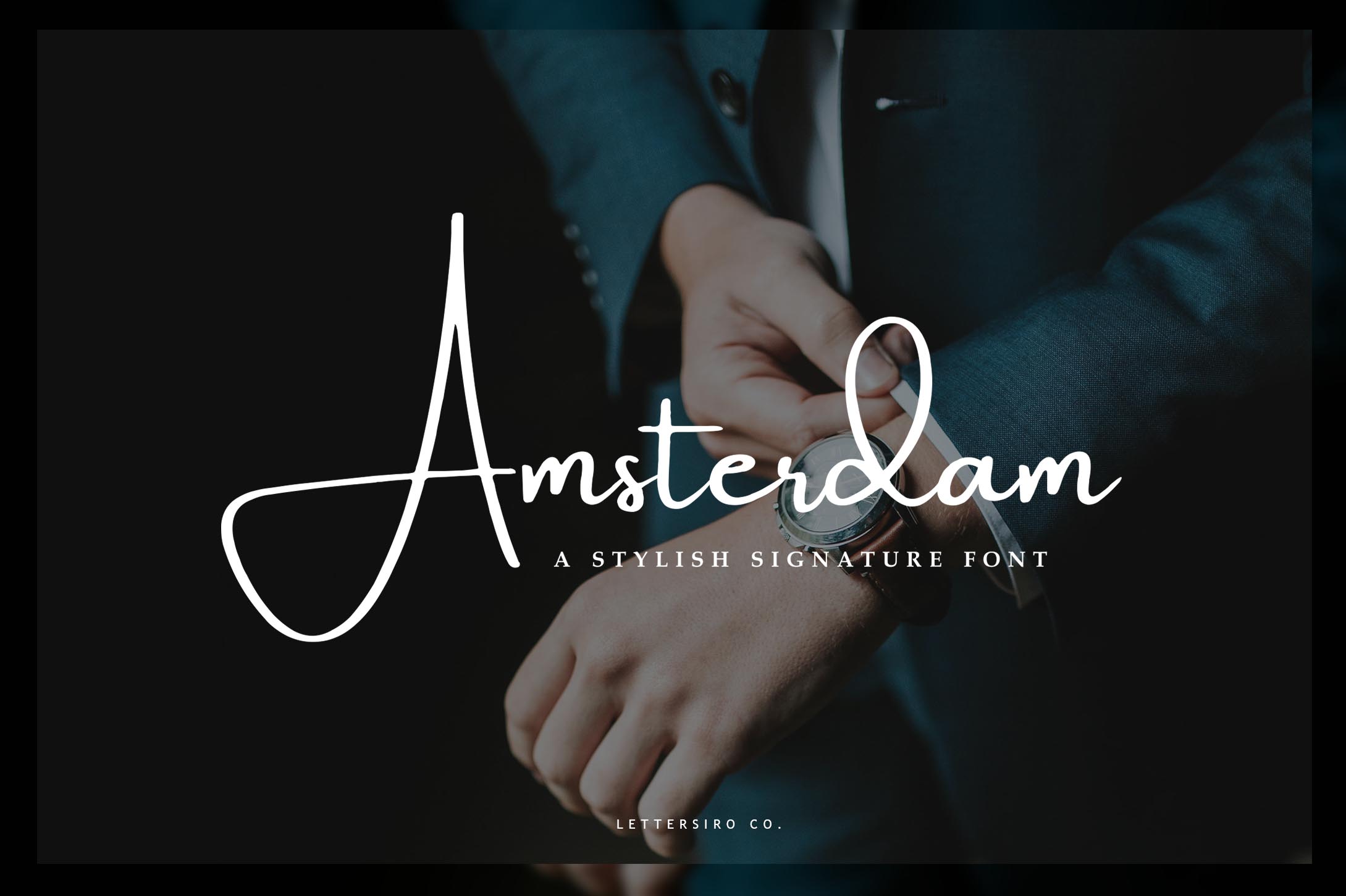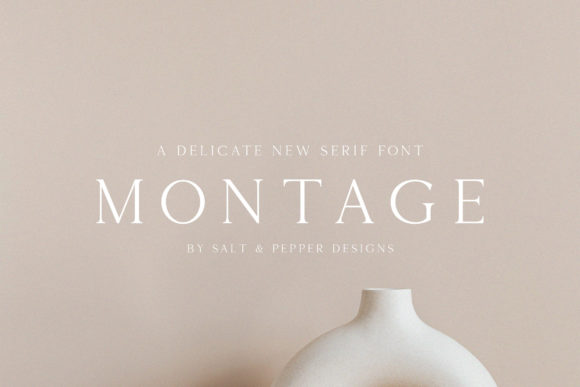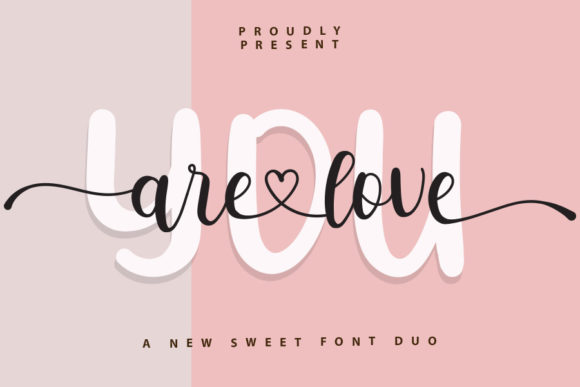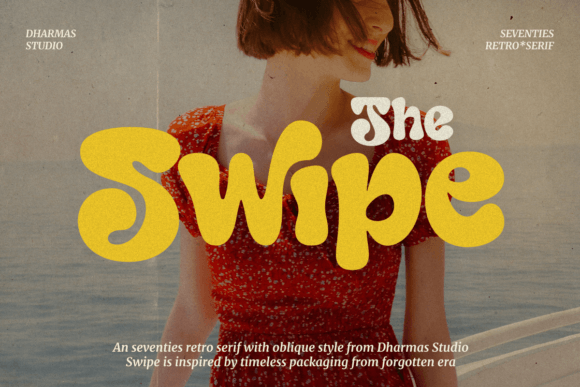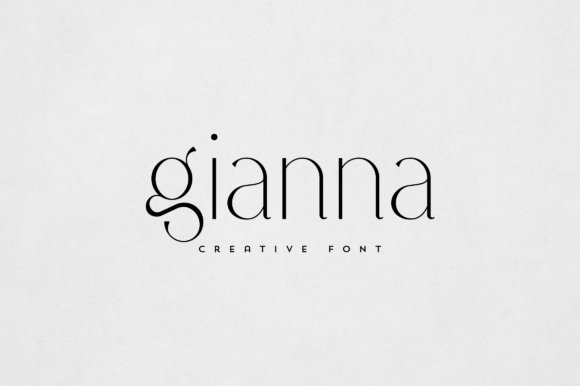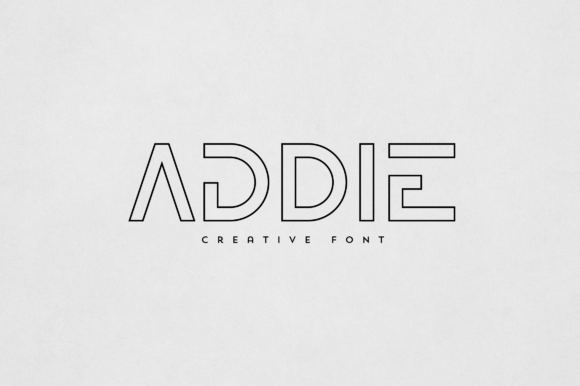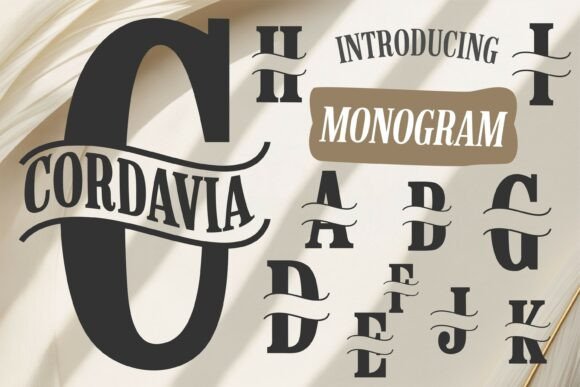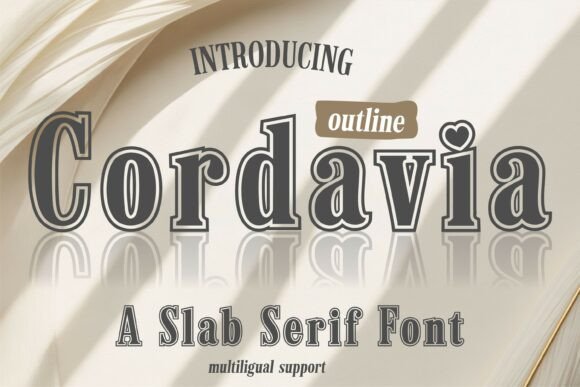
20 Aesthetic Canva Fonts for Modern Branding and Content Creation
Discover aesthetic Canva fonts for modern branding, social media, content creation, logos, invitations, lifestyle businesses, packaging, and polished visual identities.
The right font can instantly change the mood of a design. Aesthetic typefaces can make Canva graphics feel more polished, personal, modern, or expressive while helping a brand create a consistent visual identity across social media, websites, marketing materials, and digital content.
How to Choose an Aesthetic Font for Canva
Start by thinking about the personality you want your design to communicate. A handwritten font can feel personal and creative, while an elegant serif may create a more refined and editorial impression. Clean display fonts can give content a contemporary and confident look.
It is also important to consider readability. Decorative fonts can work beautifully for headlines, logos, quotes, and social media graphics, but simpler typefaces are usually better for longer paragraphs and small supporting text.
Finally, choose fonts that work consistently across your content. A strong Canva font should look good in Instagram posts, Pinterest graphics, presentations, website visuals, lead magnets, packaging, and other branded materials.
20 Aesthetic Canva Fonts
These 20 aesthetic fonts cover a range of modern design styles, including elegant scripts, handwritten lettering, decorative display fonts, feminine branding styles, monograms, and clean contemporary typefaces. They are useful for Canva branding, content creation, social media, and creative projects.
01 · Elegant Script
Vanilla Right
Vanilla Right is an elegant aesthetic font with a stylish personality that can add a polished handwritten feel to modern designs. It works beautifully for branding, social media graphics, invitations, quotes, packaging, and lifestyle content.
02 · Playful Handwritten
Vanilla Ravioli
Vanilla Ravioli brings a playful handwritten character to modern typography. Its expressive personality makes it useful for social content, branding, packaging, invitations, quotes, product graphics, and creative lifestyle projects.
03 · Elegant Branding
Gianna Font
Gianna is a refined aesthetic font that can bring an elegant and feminine quality to modern branding. Its decorative character makes it a strong option for logos, beauty brands, social media content, invitations, packaging, and editorial designs.
04 · Soft Handwritten
Breath Font
Breath has a soft, expressive aesthetic that works well for modern lifestyle and content-focused designs. Its handwritten character can add warmth to social graphics, branding, inspirational quotes, packaging, and personal creative projects.
05 · Modern Display
Golden Batch Font
Golden Batch brings a distinctive display personality to modern designs. Its bold aesthetic can help headlines, logos, packaging, social media graphics, and promotional content stand out while maintaining a creative visual identity.
06 · Contemporary Aesthetic
Moonic Font
Moonic offers a modern aesthetic look that can work across branding and digital content. Its distinctive typography is useful for logos, social media graphics, posters, packaging, editorial layouts, and creative presentations.
07 · Signature Script
Signature Mango Font
Signature Mango is a stylish script-inspired font that can give branding and content a personal signature effect. It works especially well for logos, social media graphics, stationery, packaging, quotes, and creative lifestyle brands.
08 · Feminine Display
Koela Font
Koela has an elegant aesthetic character that can help create polished and memorable visual identities. It can be used for branding, logos, beauty content, social graphics, invitations, packaging, and modern editorial layouts.
09 · Statement Font
Montage Font
Montage is a strong choice when typography needs to become a visual focal point. Its expressive display character can work beautifully for logos, headlines, posters, social media graphics, campaigns, packaging, and creative brand identities.
10 · Clean Aesthetic
Cary Font
Cary offers a clean and contemporary direction for aesthetic design. It can be used for modern branding, social media graphics, presentations, website visuals, packaging, and content where typography needs to remain polished and clear.
11 · Handwritten Script
Amsterdam Font
Amsterdam brings an expressive handwritten style to modern design. It is a versatile option for logos, social media graphics, invitations, quotes, branding, packaging, and other projects where a personal handwritten touch is useful.
12 · Modern Display
Beitro Font
Beitro offers a distinctive modern display style that can give Canva designs a strong visual identity. It can work well for logos, social posts, posters, product graphics, packaging, headlines, and creative brand materials.
Should I use one font or multiple fonts in Canva?
One font can be enough for a simple design, but pairing a decorative display font with a cleaner supporting typeface often creates better hierarchy and readability. Two fonts are usually easier to manage consistently than many different typefaces.